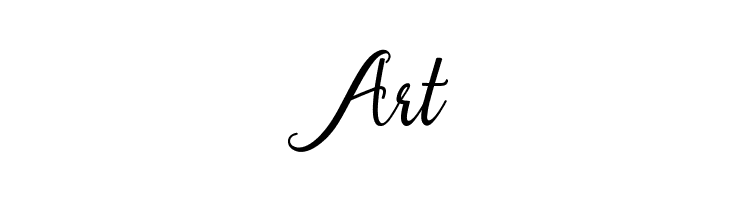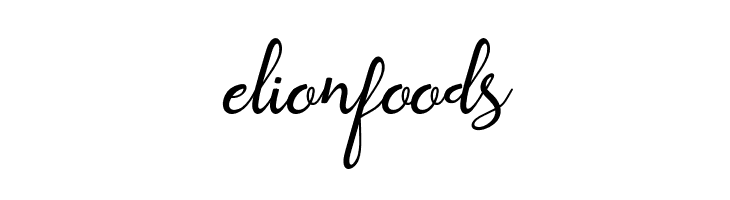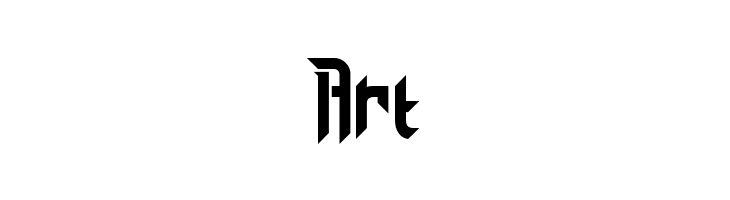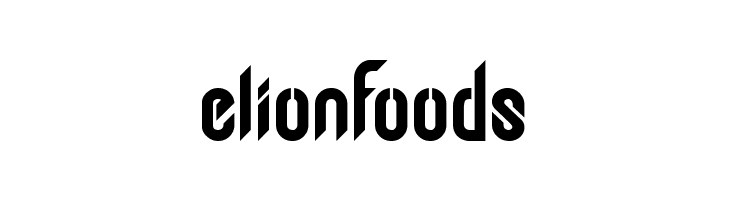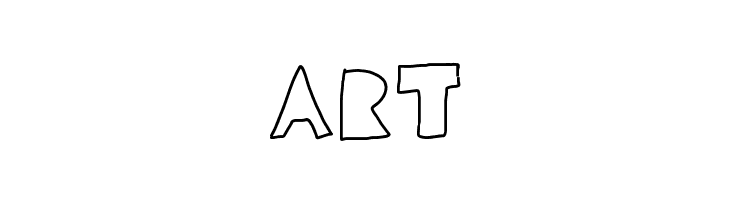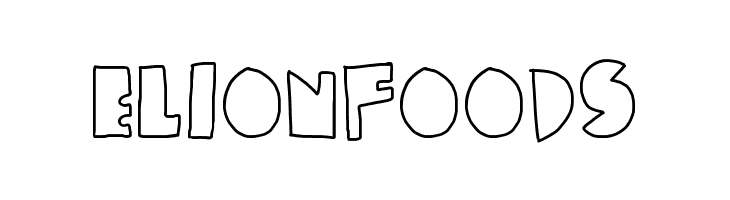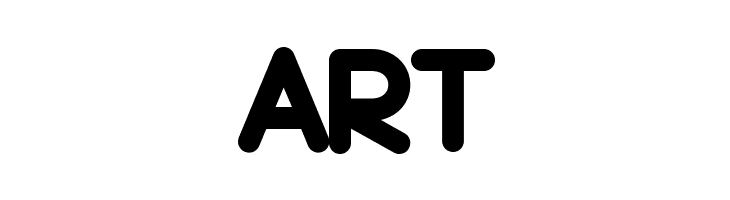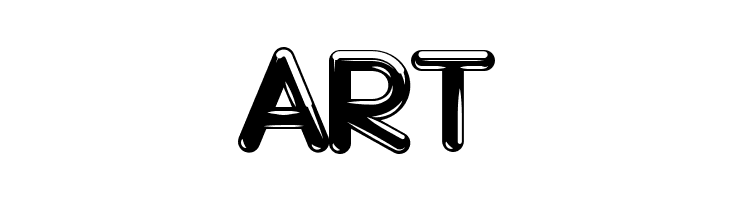
A bold, decorative font with mermaid-themed motifs and a strong visual impact.
A bold, decorative font with sea-themed cutouts, perfect for creative projects.
A festive, elegant script font with ornate details and holiday-themed icons.
A bold, rounded font with a modern and playful style.
A bold, chrome-effect font with a modern, metallic appearance.
A bold, angular font with a futuristic and geometric design.
A playful, chunky block font with a hand-drawn, whimsical style.
An elegant, flowing script font with smooth, cursive lines and graceful curves.
A cursive script font with elegant, flowing characters.